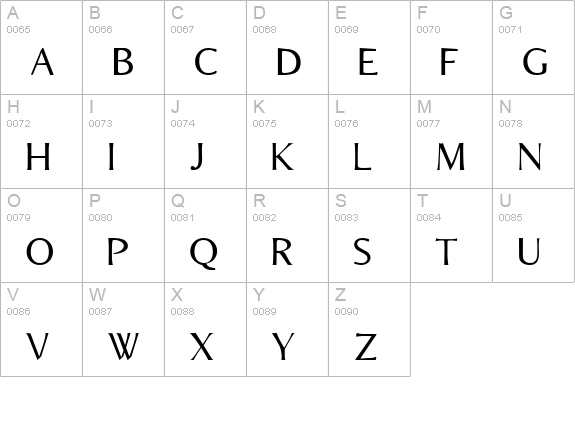
Bordini (Unregistered) Font Details
Bordini (Unregistered) font is a modern and stylish typeface that exudes sophistication and elegance. With its sleek lines and subtle curves, this font is perfect for adding a touch of class to any design project. The versatility of Bordini (Unregistered) font makes it suitable for a wide range of applications, from branding and advertising to editorial and web design. What sets Bordini (Unregistered) font apart is that it is available for free download at FontsMarket.com. This means that you can easily access this high-quality font without any cost, making it an excellent choice for both personal and commercial projects. Don't miss out on the opportunity to enhance your designs with the beauty and elegance of Bordini (Unregistered) font – download it for free today!